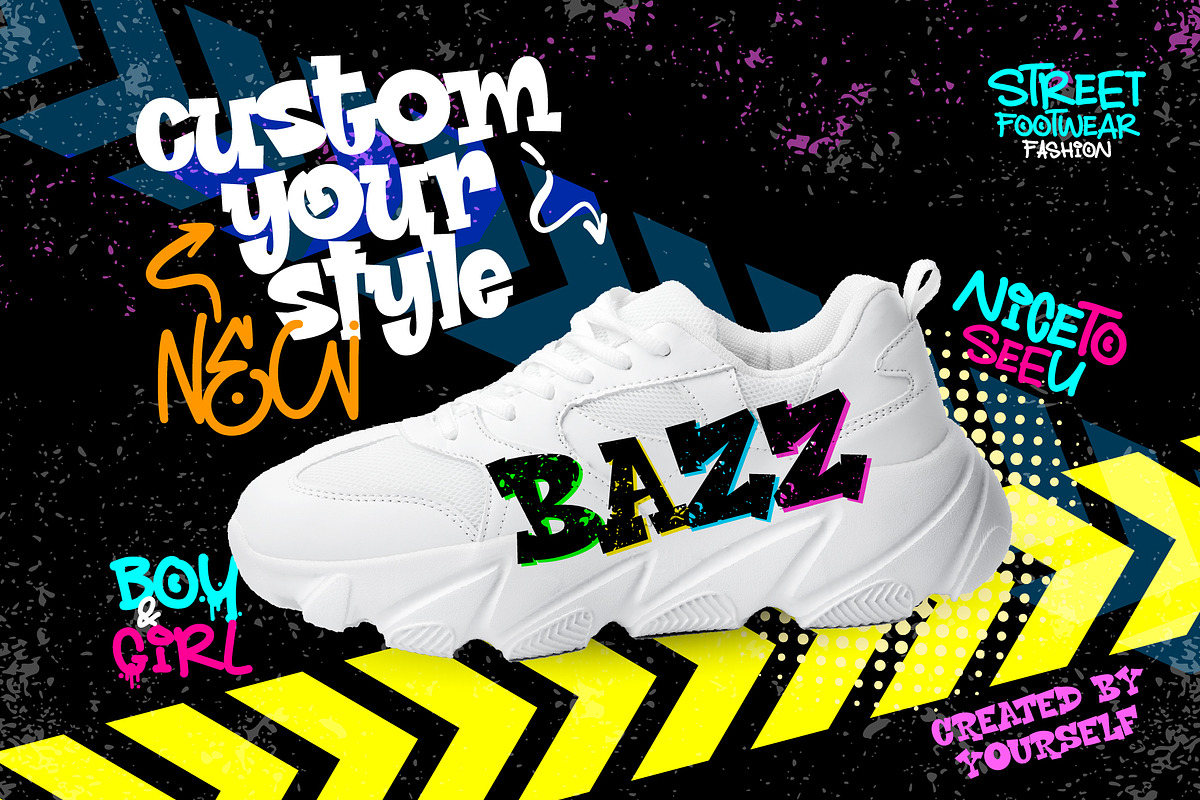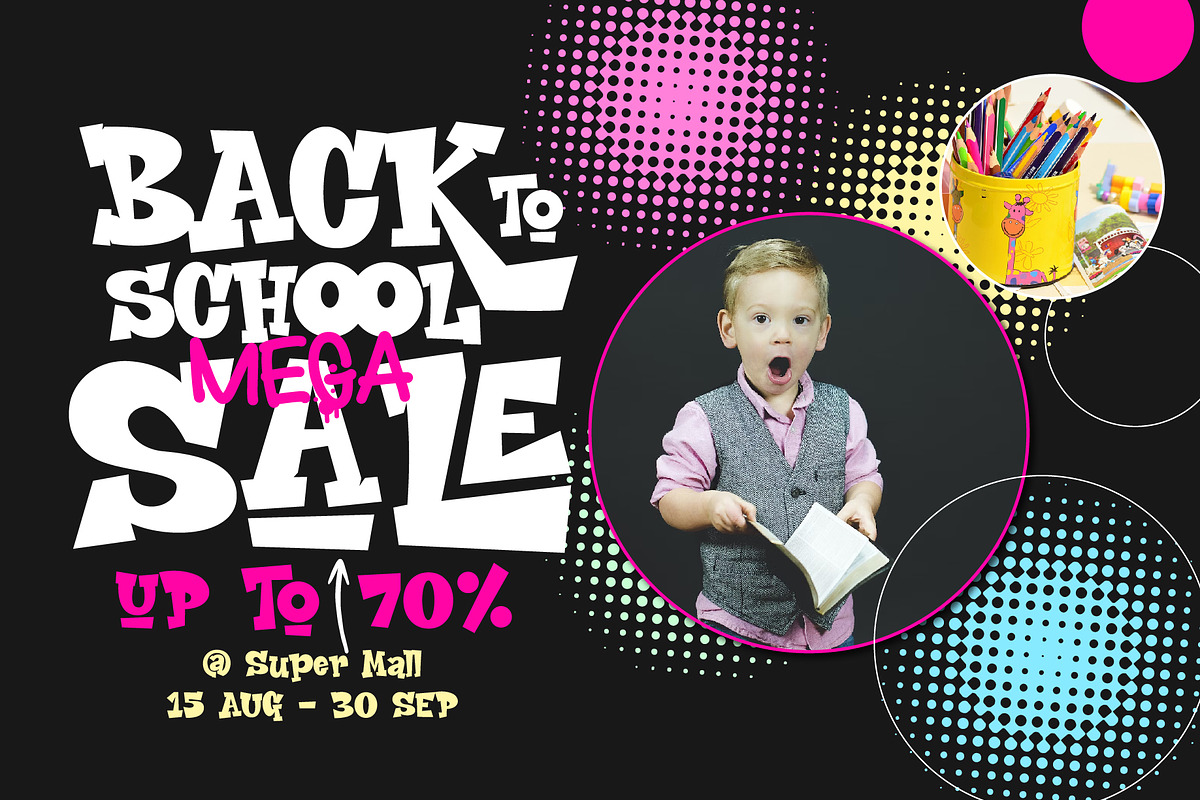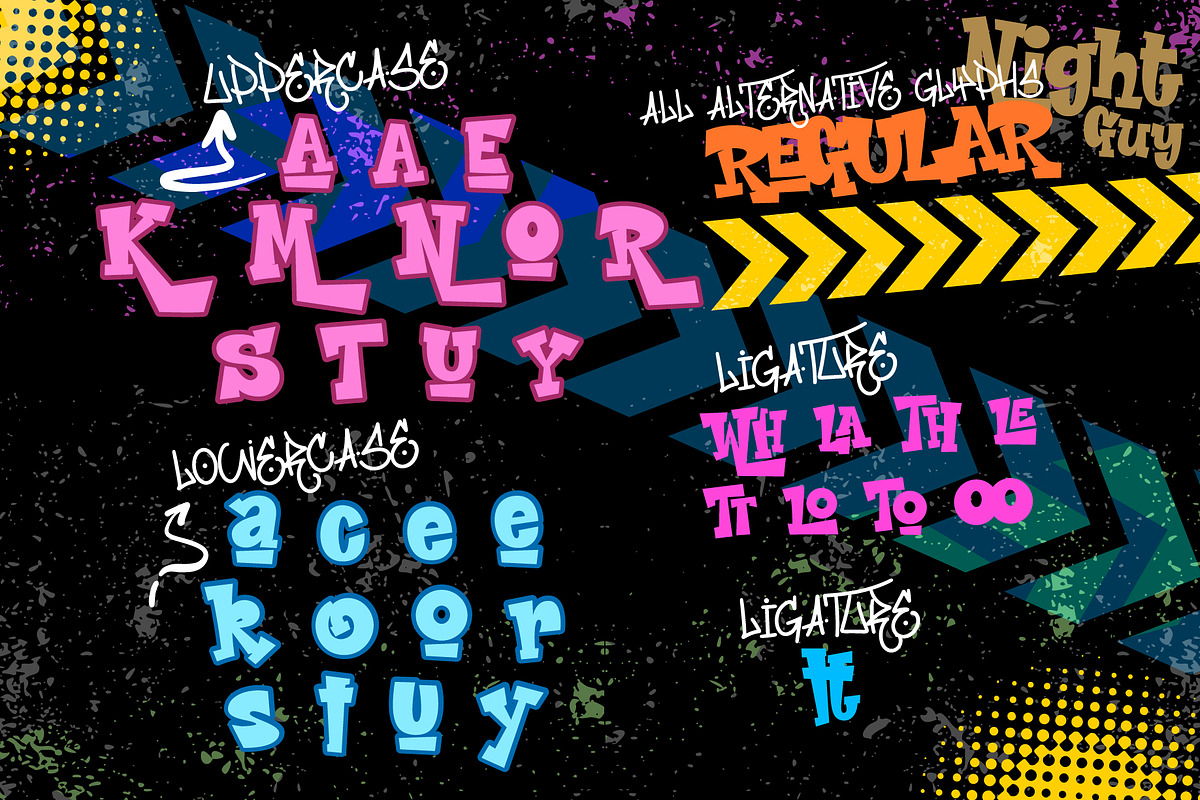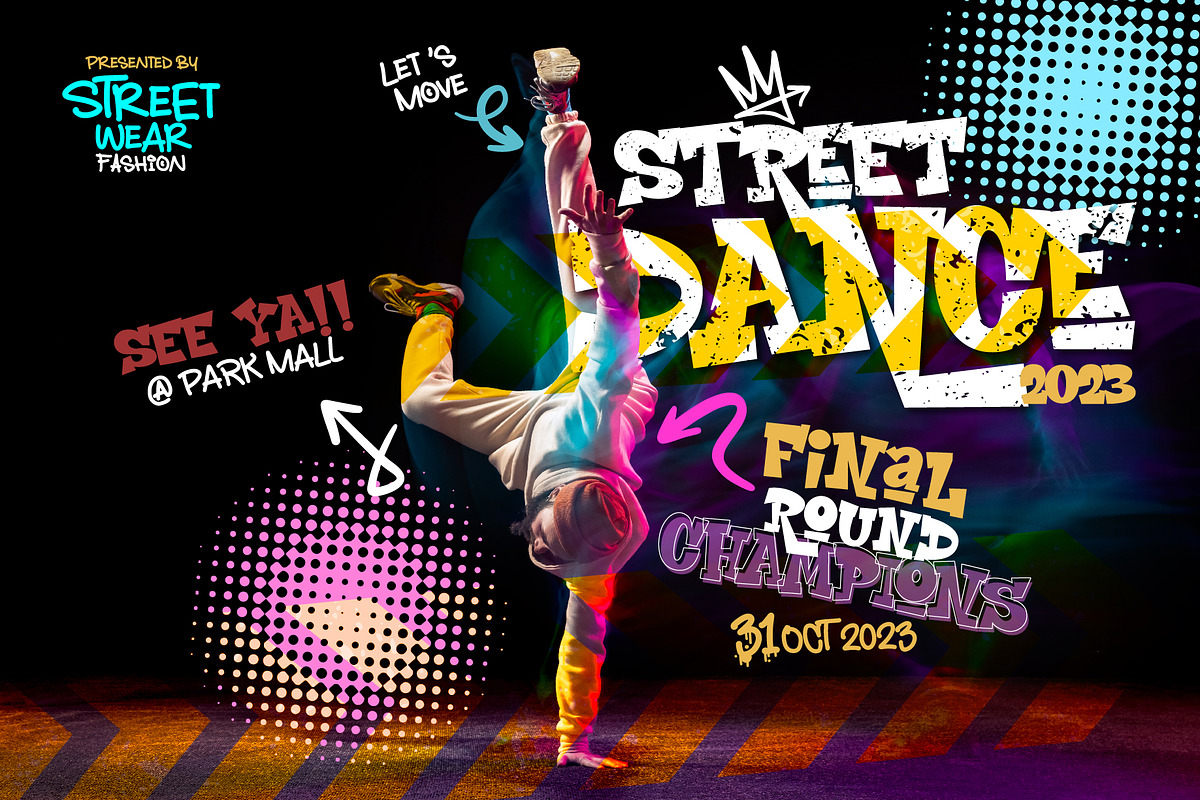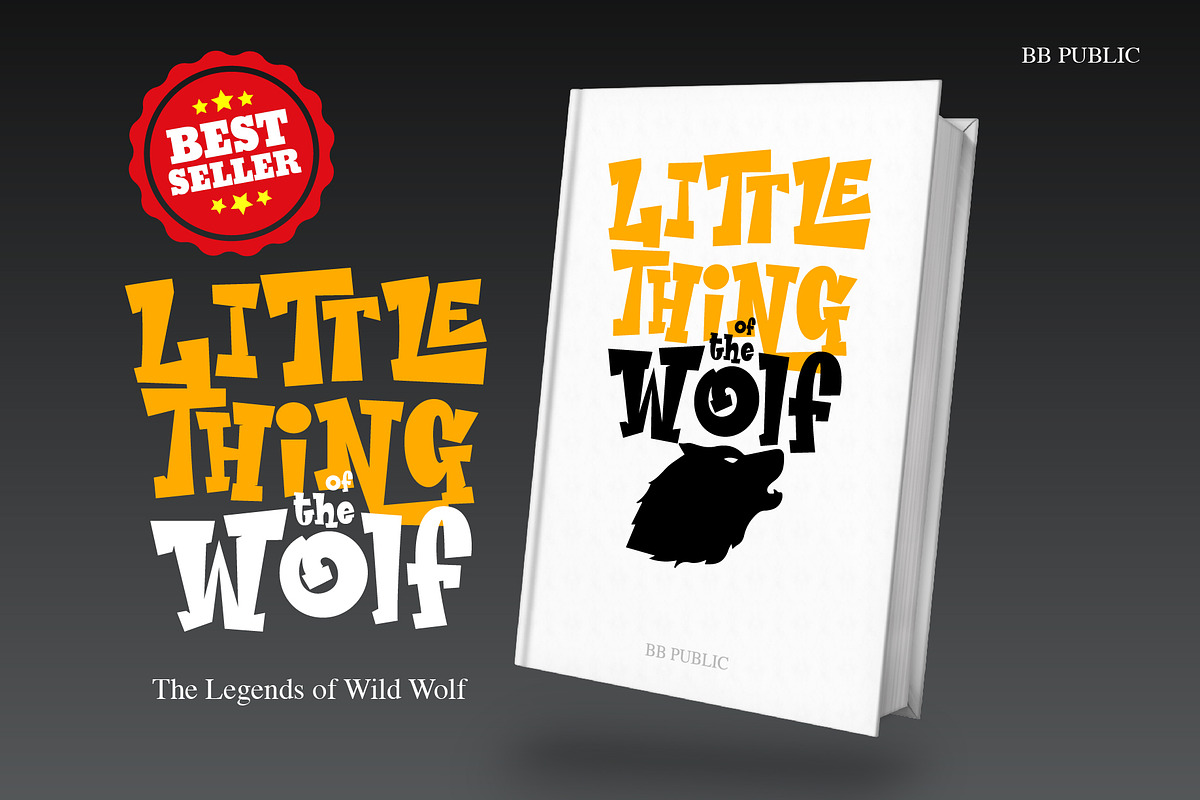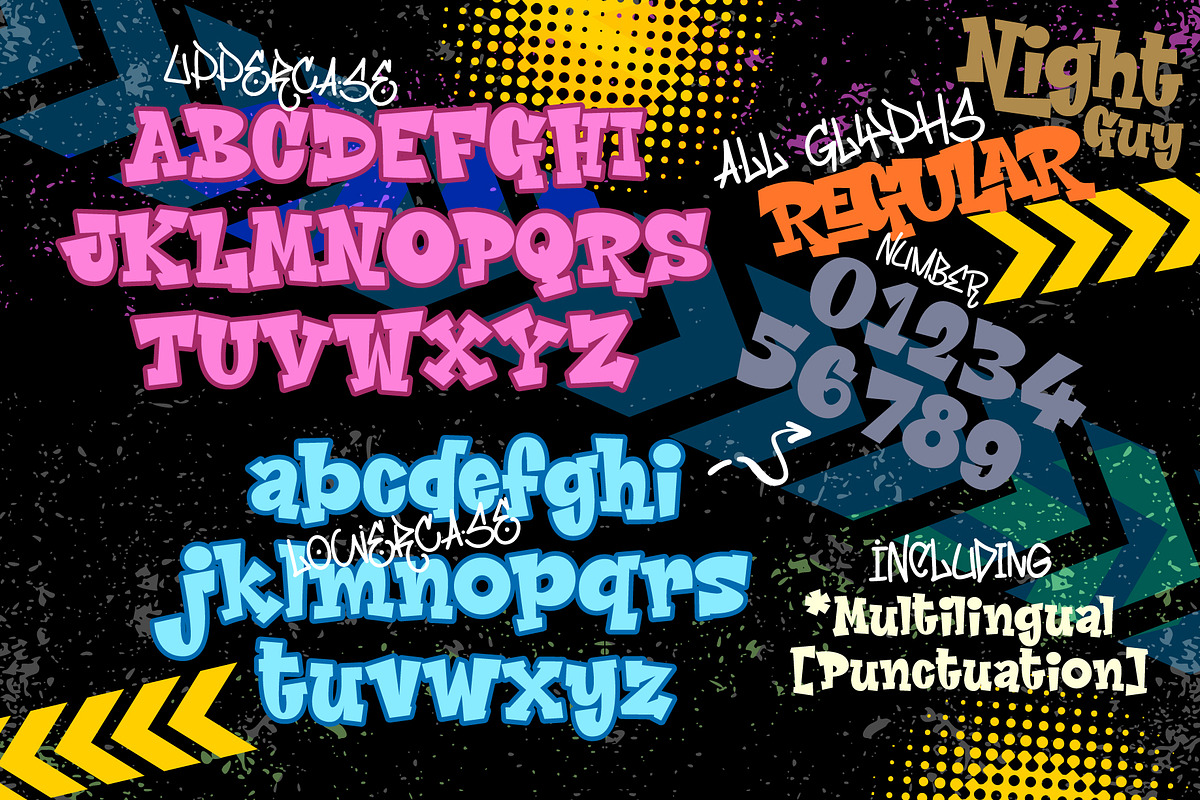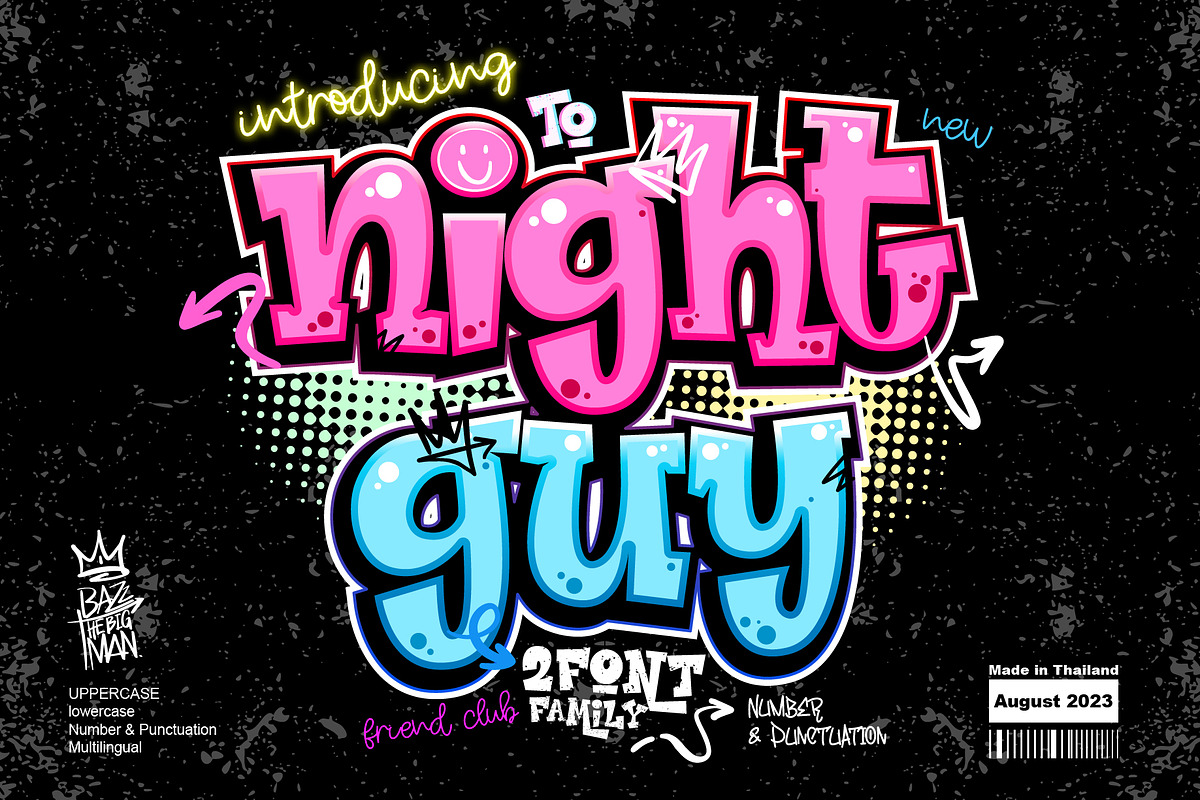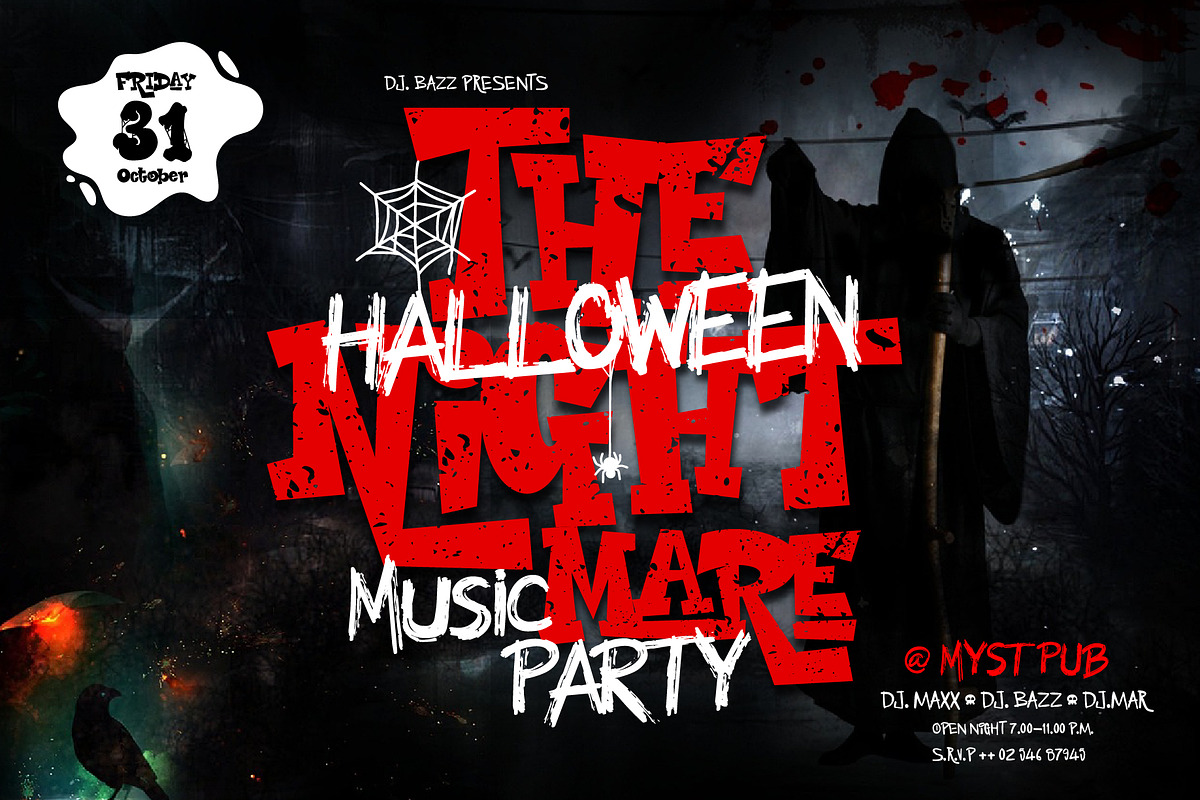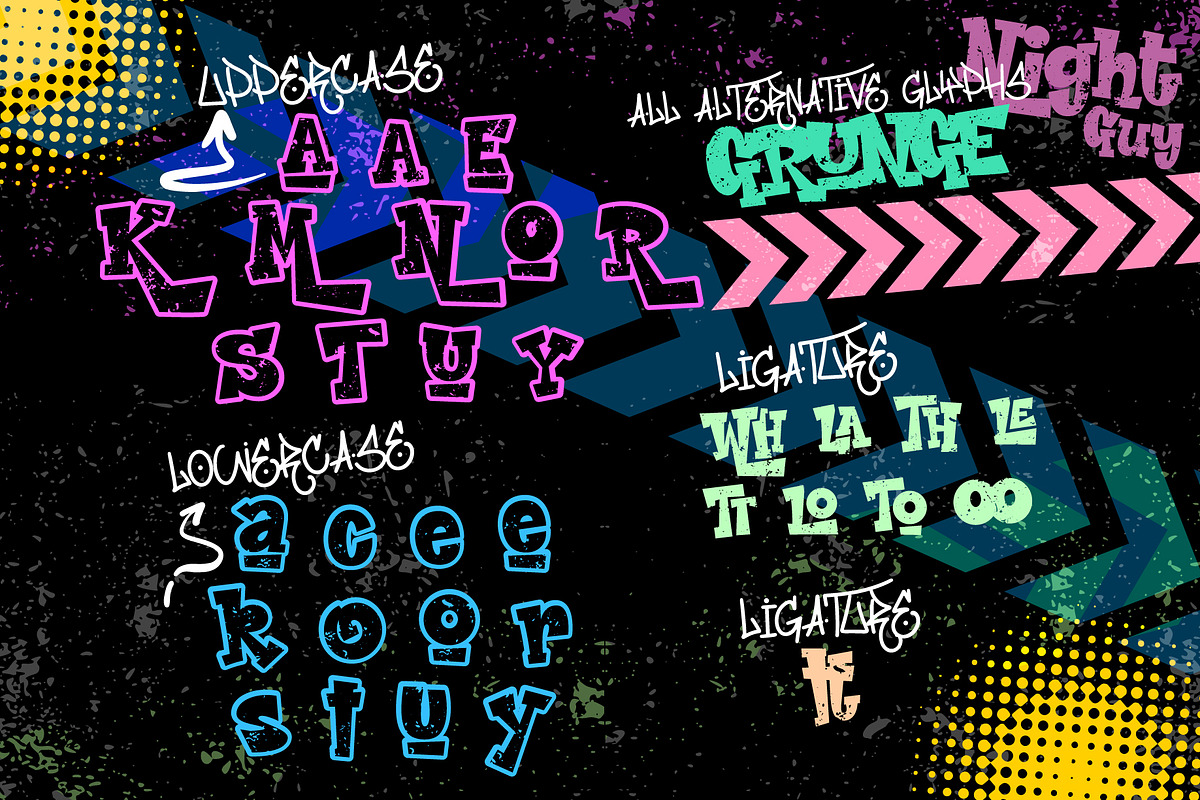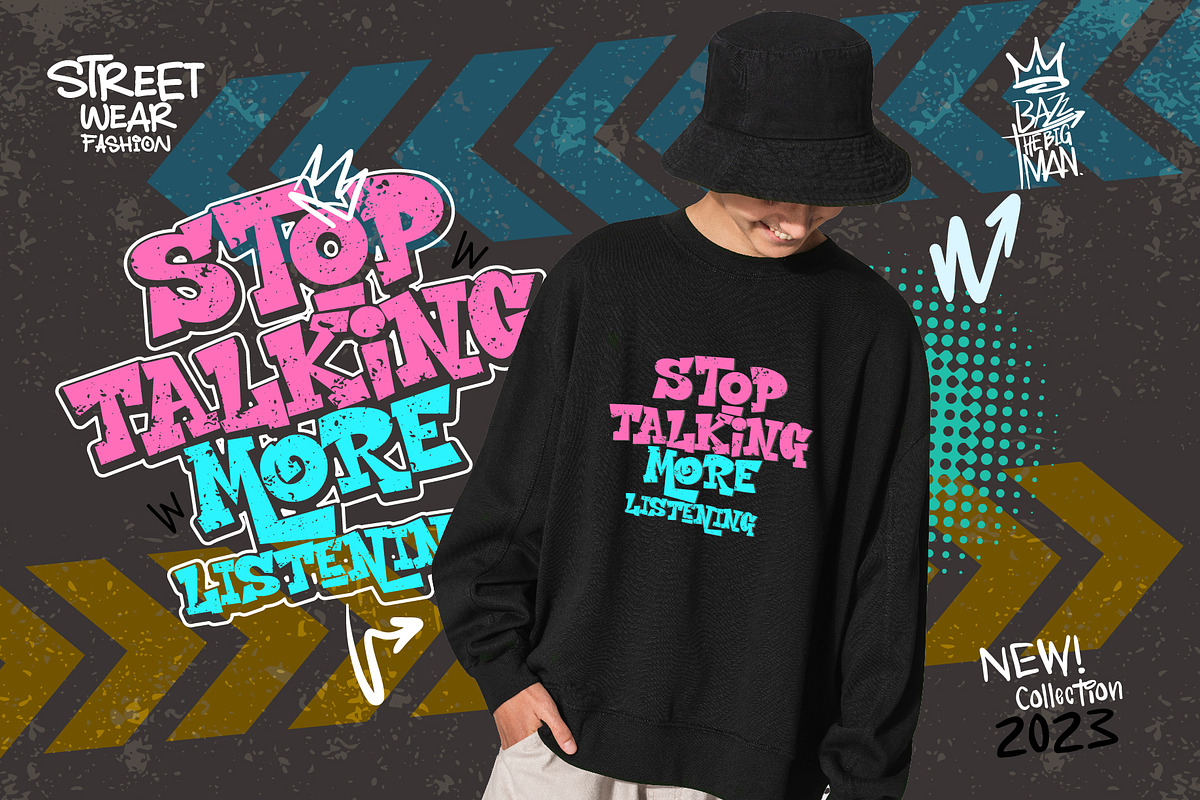
Night Guy
Night Guy is a 2 display graffiti font style. Characterized by sharp edges fun and a bold look. Created ideas for posters, logo design, book covers, T-shirts, streetwear, and more!. Whether you want to create a strong and powerful word or simply add to your designs is Night Guy the font for your project.